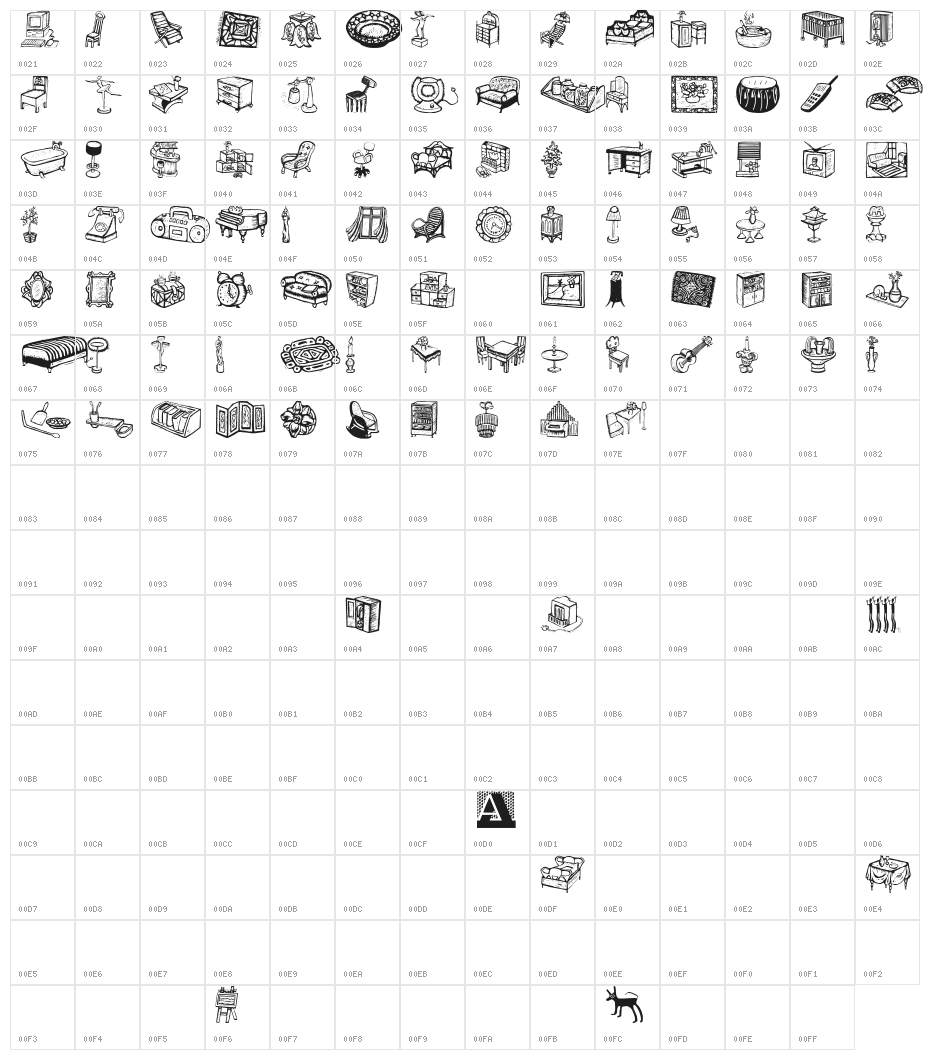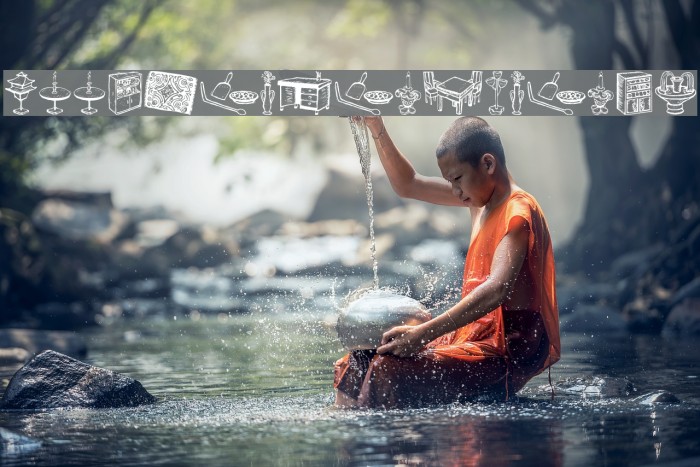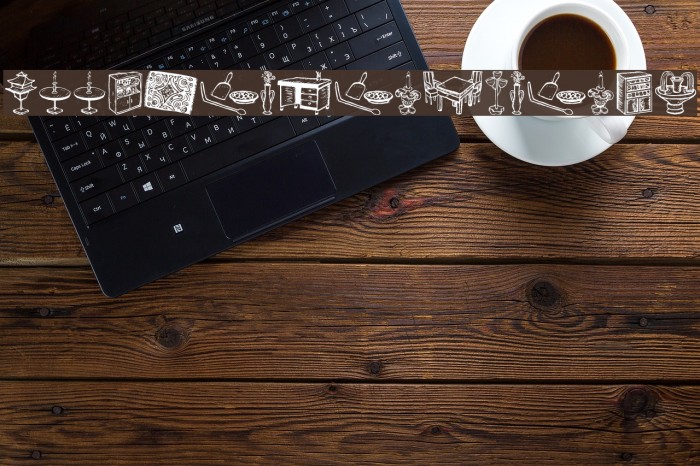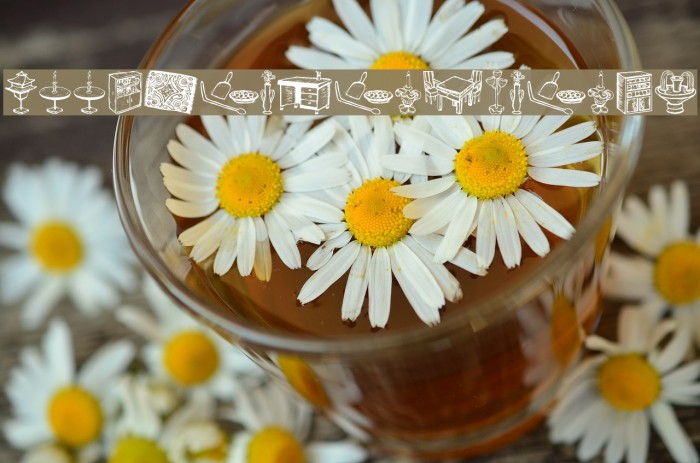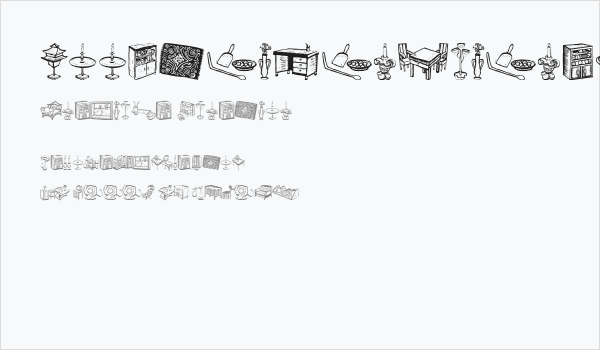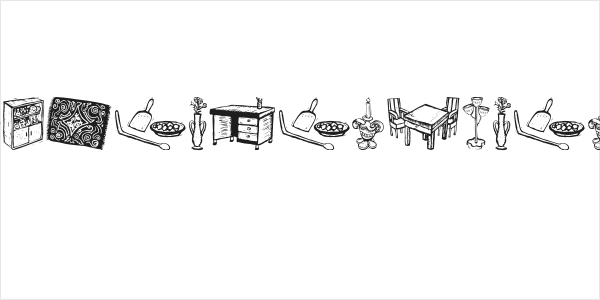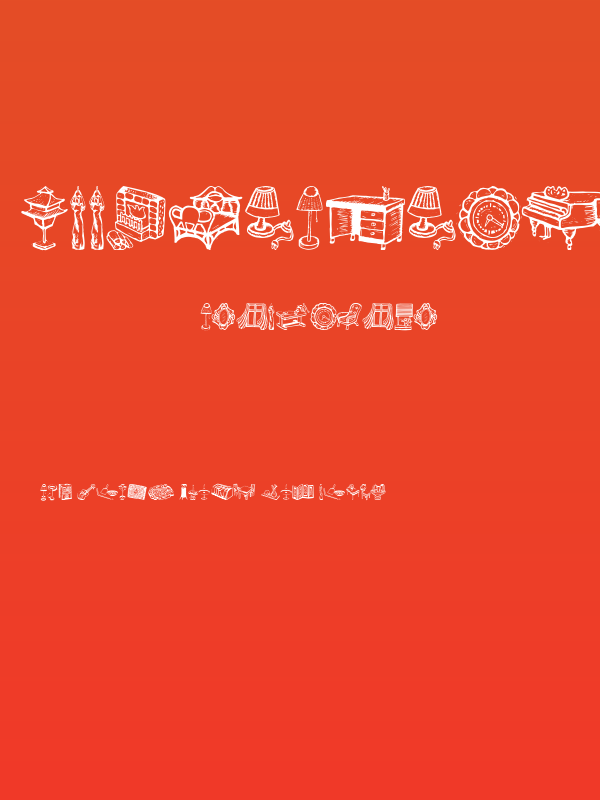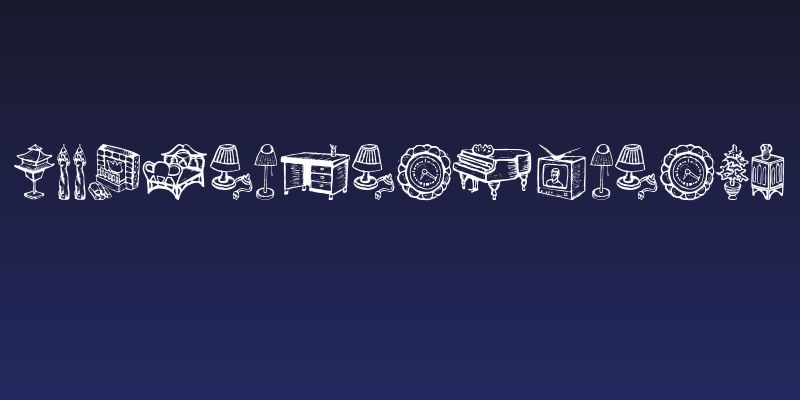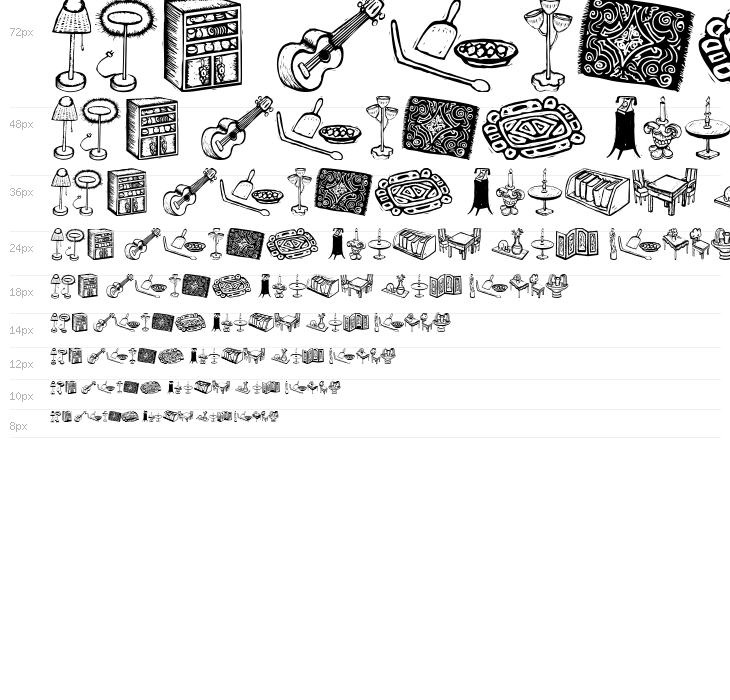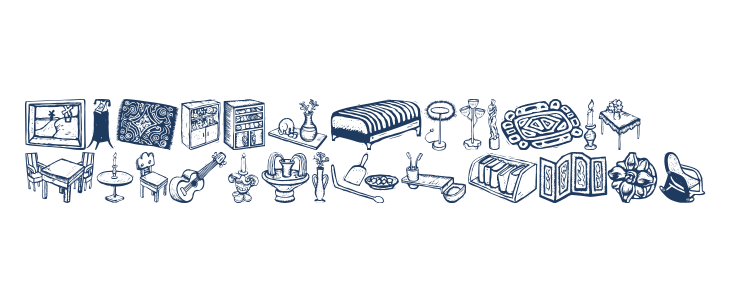
WoodcutFurnitures Font
WoodcutFurnitures Description
A decorative display font featuring hand-drawn illustrations of various furniture and household items, each glyph represented by a unique, detailed woodcut-style drawing. The characters are highly illustrative, with bold outlines and intricate interior detailing, evoking a vintage, artisanal feel reminiscent of traditional woodcut prints.
Overall StyleVintage, Decorative, Hand-drawn
Use CaseLogos, Headlines, Posters, Themed Graphics
Proposed ProjectsChildrenÒ€ℒs books, themed posters, invitations, branding for vintage or home decor shops, educational materials, scrapbooking.